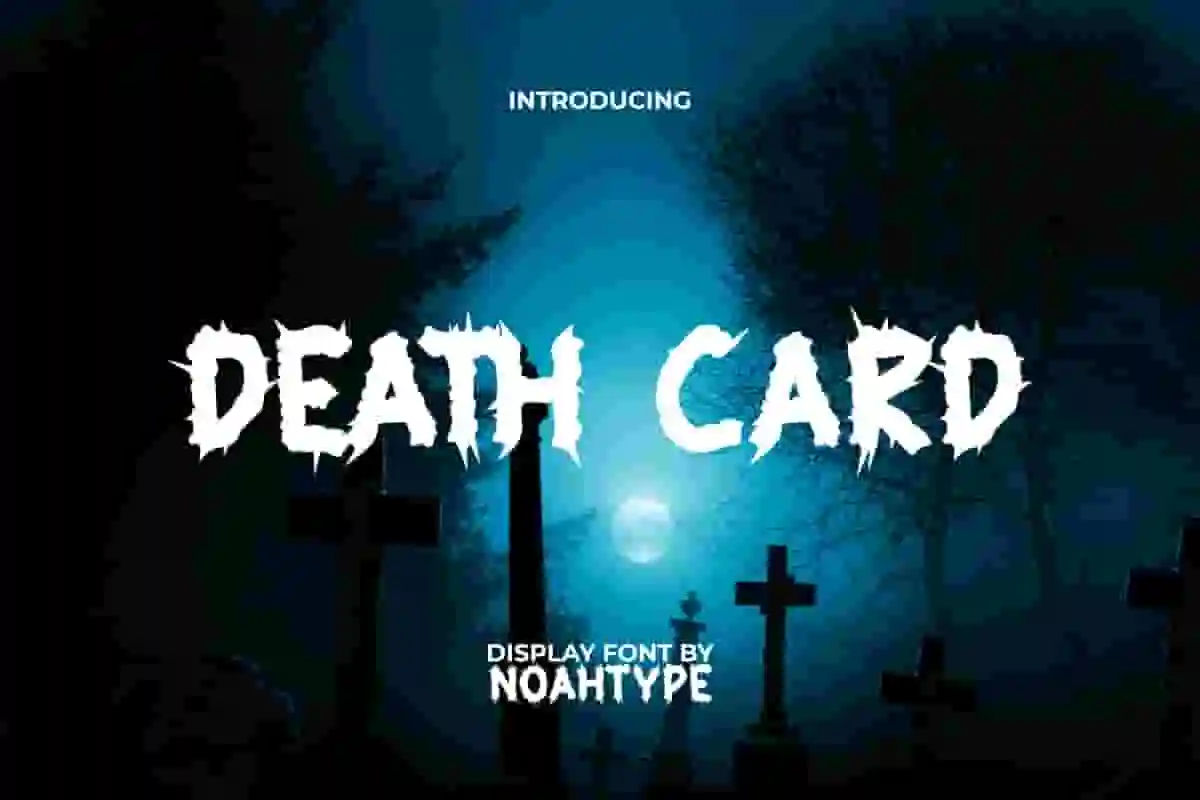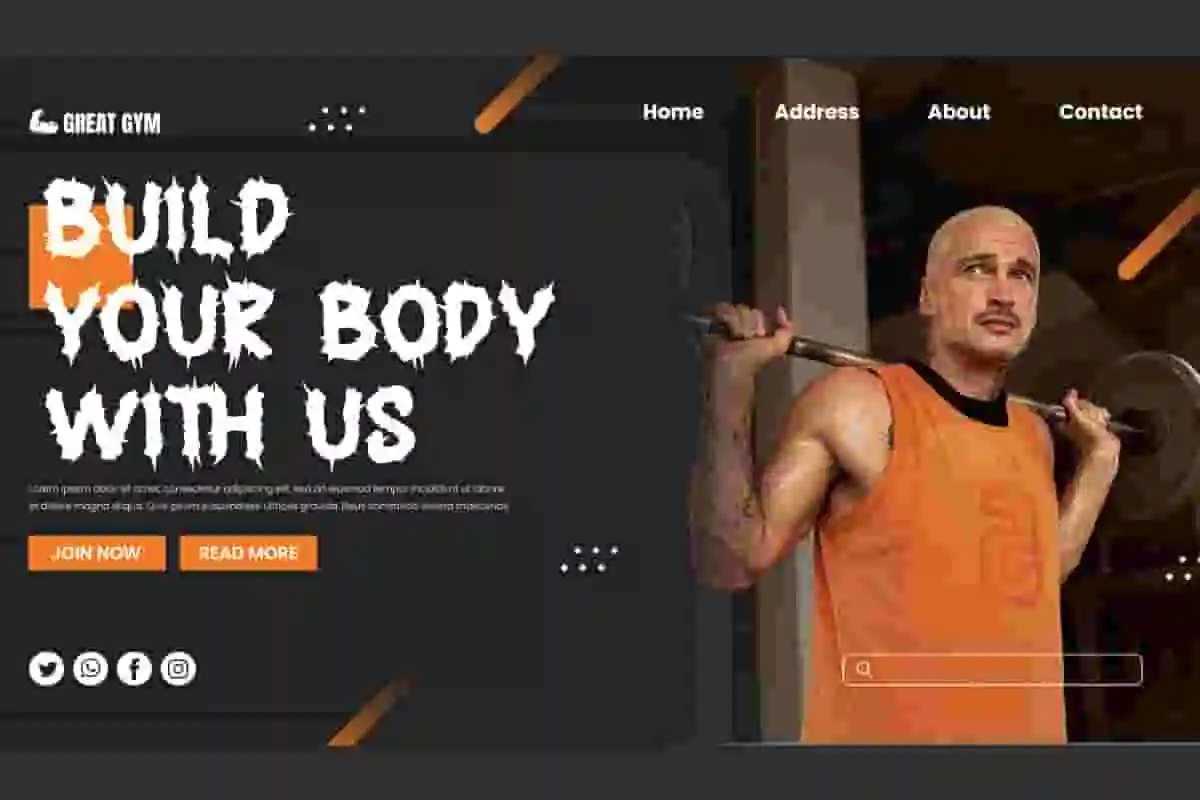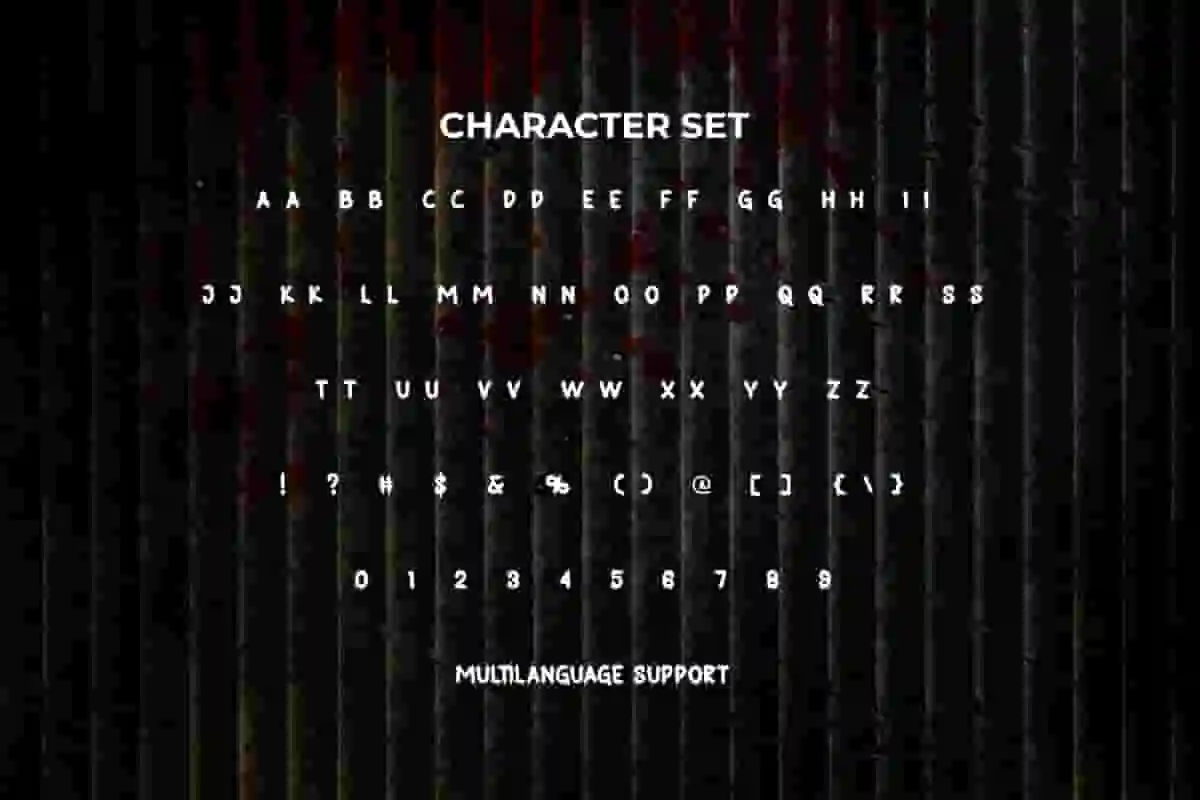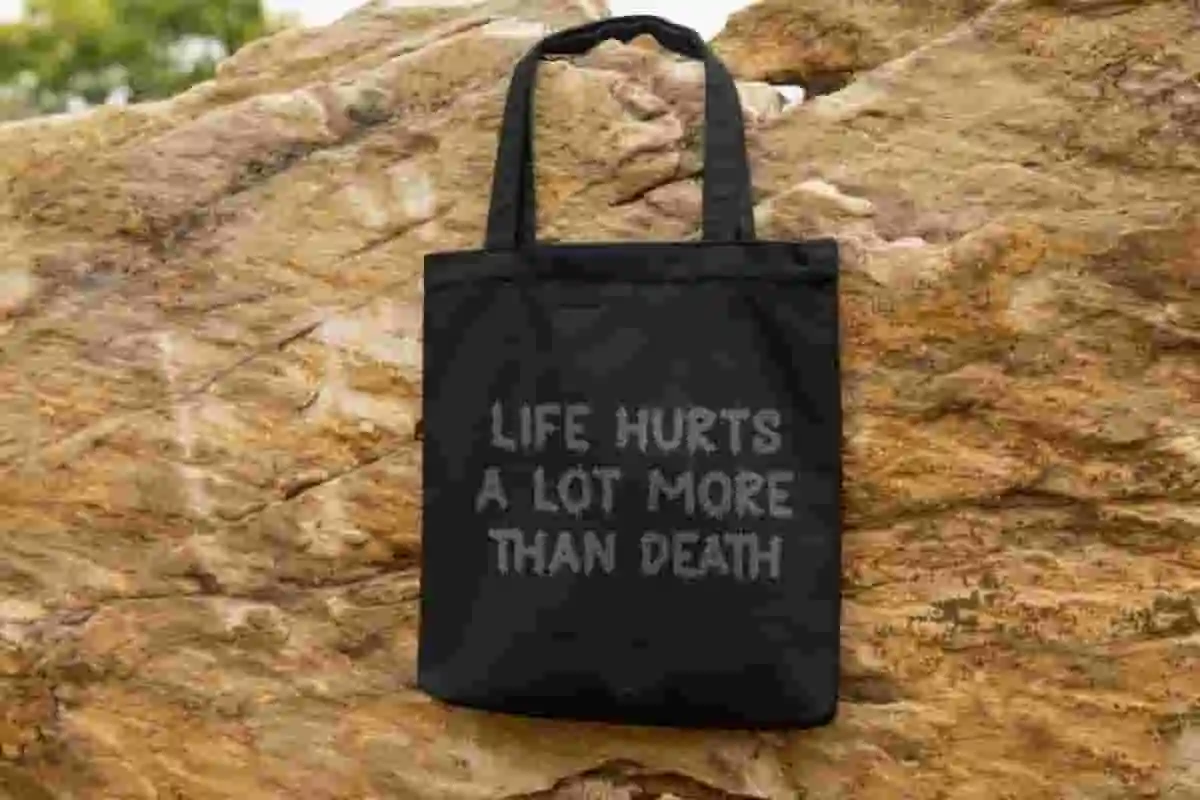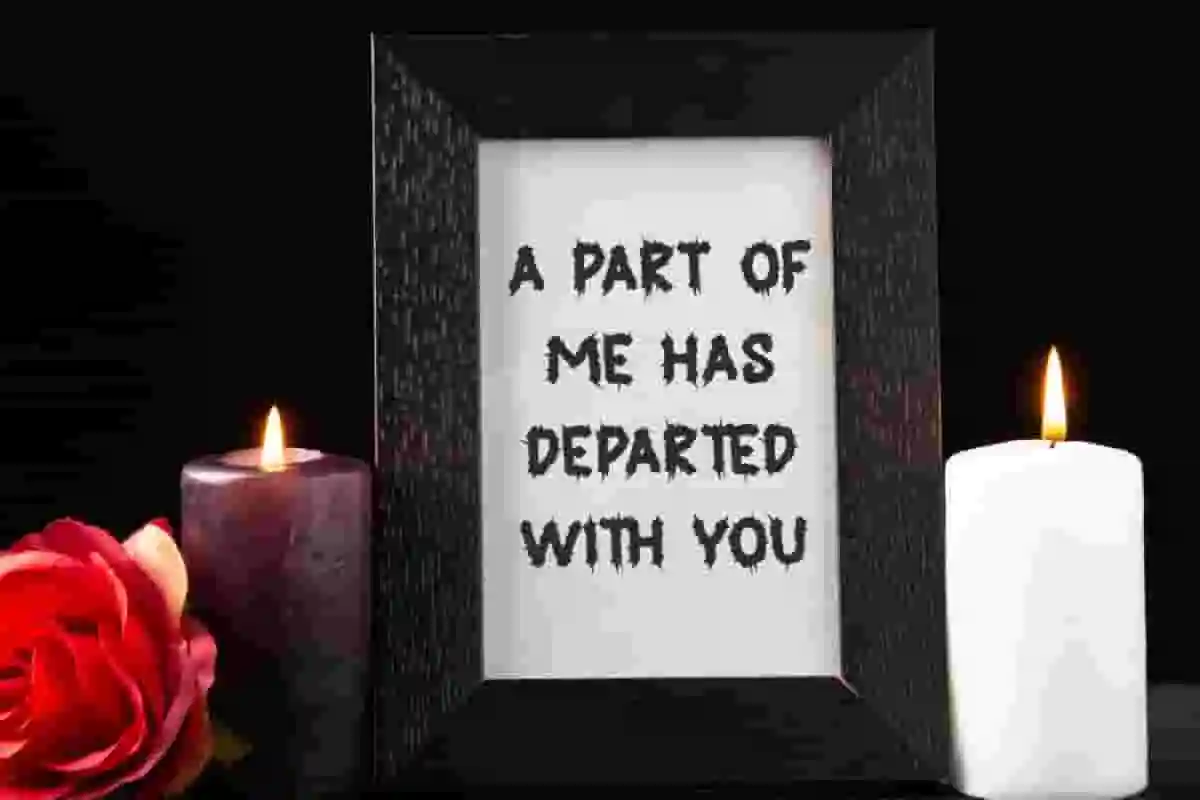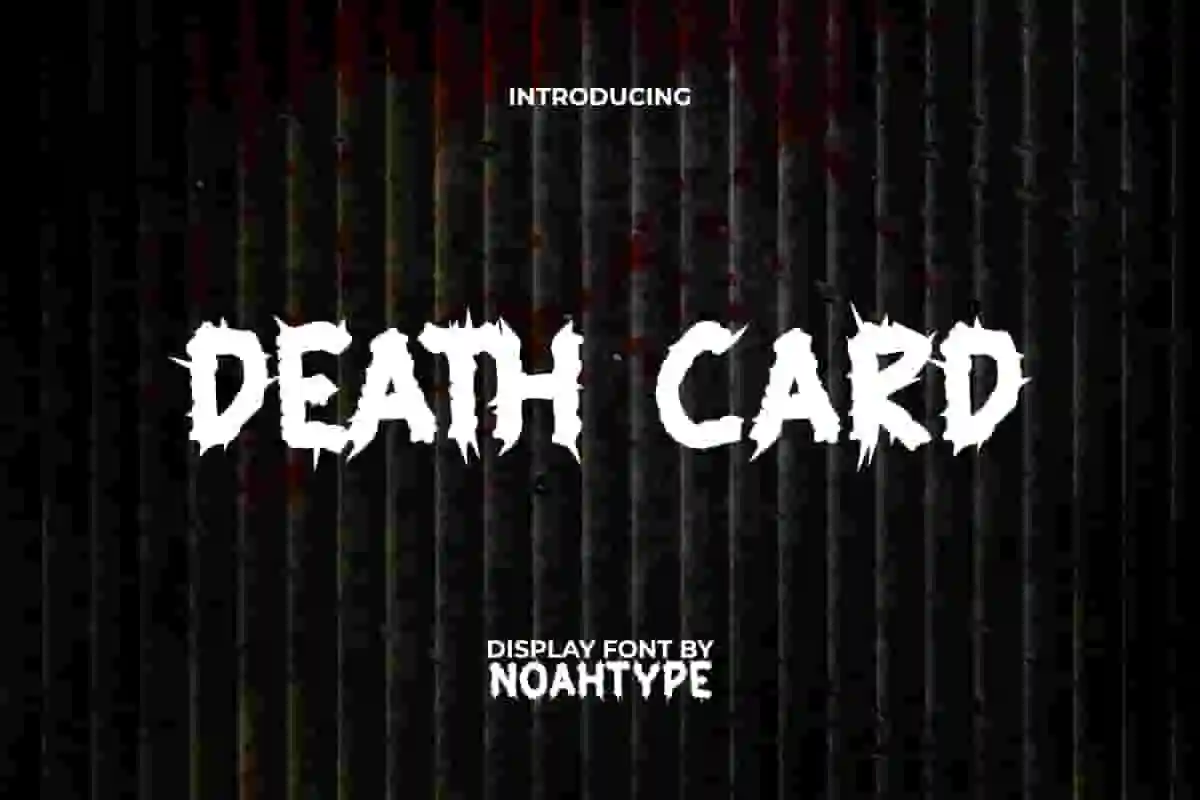
Death Card Font is a harsh black metal font with horror style by NoahType. This font leaves a chilling impression on anyone who sees the design. It will be perfect for any designs, such as brand image, custom design, invitation, label, marketing material, menu, poster, printing, product packaging, quotes, signage, website, and many more!
Death Card Font includes full set of ALL CAPS for Uppercase and Lowercase Basic Characters, Numerals, Punctuation, and Symbol. This font will make your design outstanding and also a perfect choice for many industries, such as accessories, advertising, art, café, fashion, game, movie, printing, publishing, sports, etc.